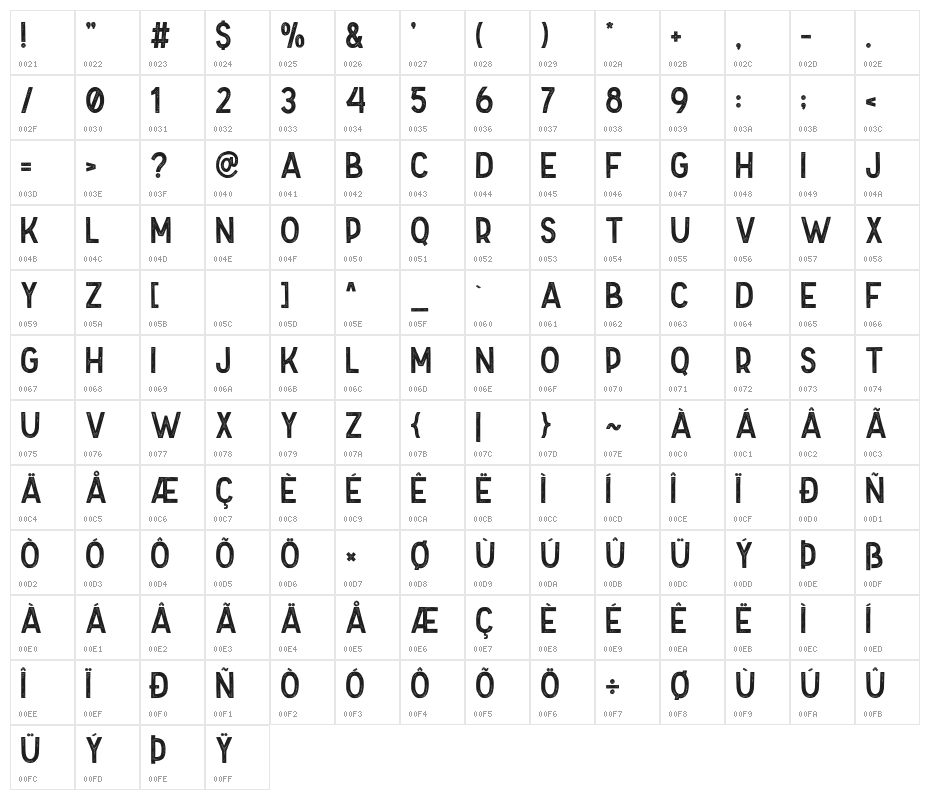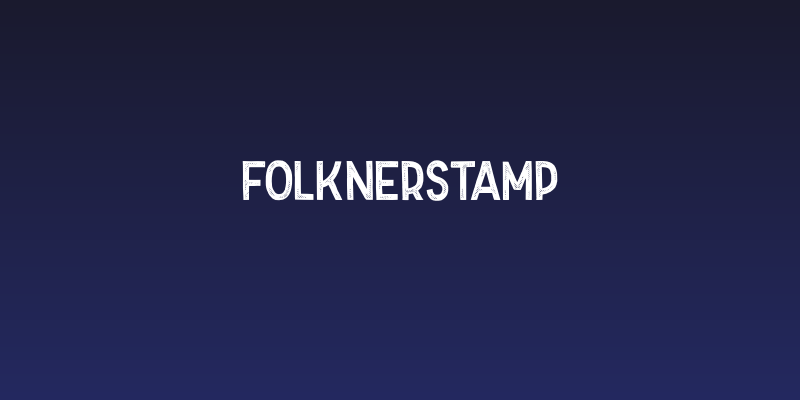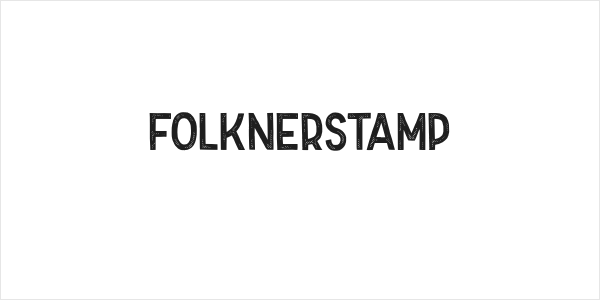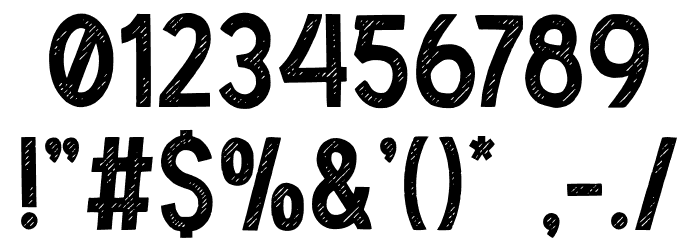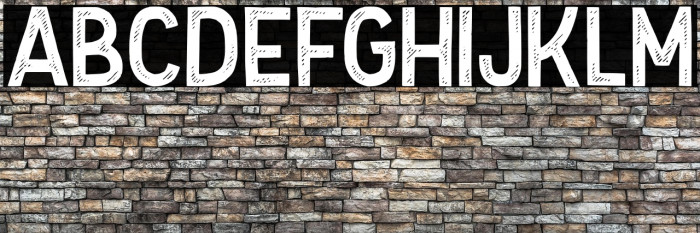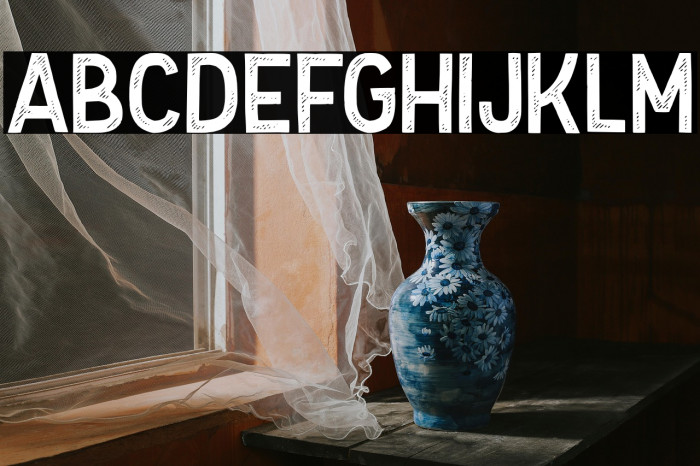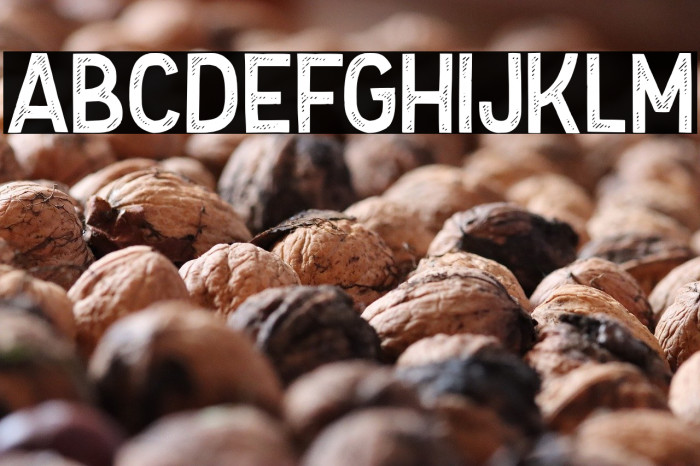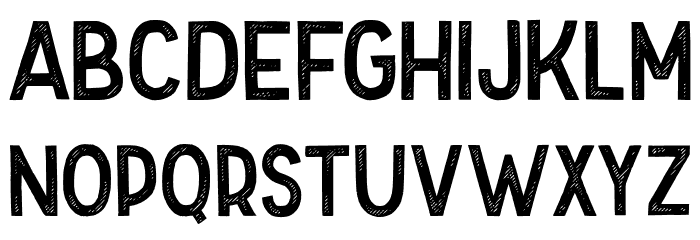
FolknerStamp Font
FolknerStamp Description
This font features a bold, hand-drawn style with a textured appearance that mimics the look of a stamp. The characters have a playful and slightly irregular design, giving them a unique and artistic flair. The uppercase and lowercase letters maintain a consistent style, with rounded edges and a slightly distressed look. The numbers and special characters follow the same design principles, ensuring a cohesive appearance across all glyphs. The font's boldness and texture make it stand out, ideal for projects that require a touch of creativity and individuality.
| Proposed Projects | Ideal for creative projects such as posters, invitations, branding, and packaging that require a distinctive and artistic touch. |